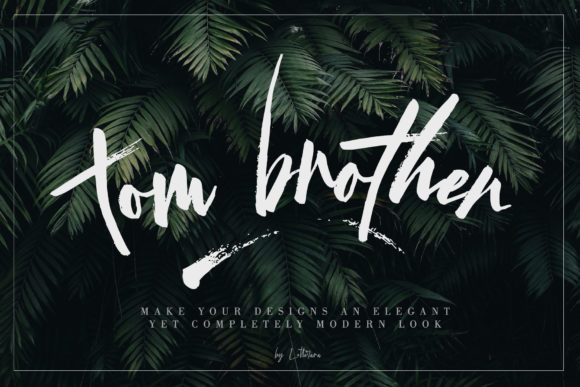
Embrace the world of handwritten elegance with Tom Brother, a script font that exudes a captivating fusion of classic charm and contemporary flair! Crafted by the visionary mind of thomasaradea, this brush font is a textural masterpiece that will infuse your designs with a touch of individuality like no other.
Unleash your creativity with Tom Brother's mesmerizing strokes, masterfully designed to mimic the natural flow and texture of handwritten notes. Each letter dances across the page, leaving a trail of visual intrigue that commands attention. Perfect for logos, branding, invitations, and social media posts, this font will elevate your designs to new heights, turning heads wherever it goes.
Step into a world of endless possibilities with Tom Brother! Its versatility knows no bounds, effortlessly adapting to a myriad of creative projects, from eye-catching headlines to heartfelt letters. Let your imagination run wild as you explore the endless horizons of creativity, knowing that Tom Brother will faithfully accompany you on your artistic journey.
Immerse yourself in the world of script fonts, where elegance meets edginess, where tradition intertwines with modernity. Tom Brother is your gateway to a visual feast, a world where your designs will shine brighter than ever before. Join the ranks of creative visionaries who have discovered the transformative power of Tom Brother, and let your projects blossom into masterpieces that inspire and captivate.